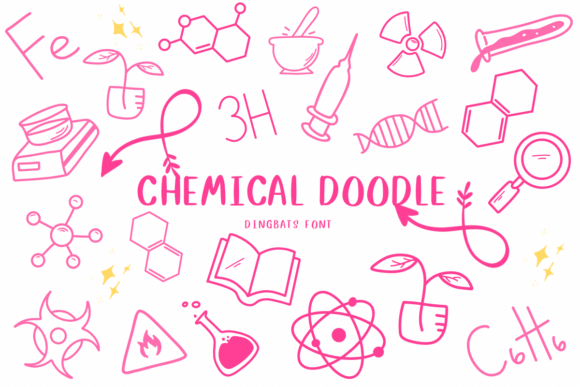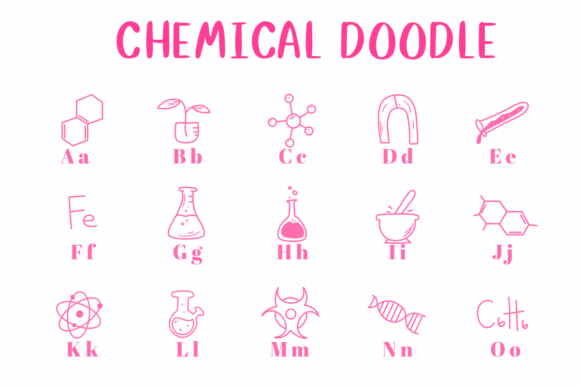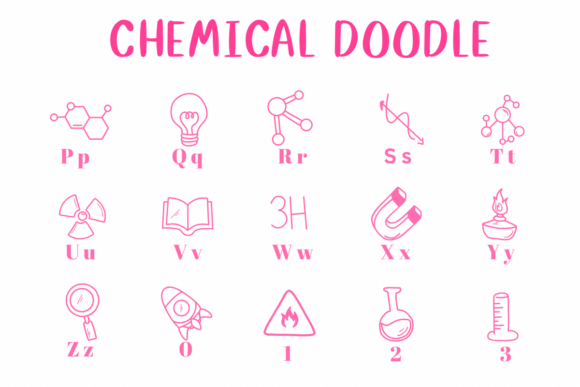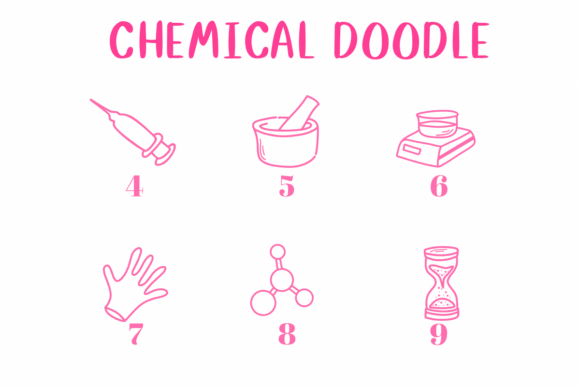
Chemical Doodle Font
About the Chemical Doodle Font
Discover the charm of Chemical Doodle Font. This font is a perfect blend of modern aesthetics and classic appeal. Chemical Doodle is a dingbats font with a sketched style. This font can enhance your creative projects such as wedding invitations, DIY, crafts, decorations, logos, and many other creative ideas.
Chemical Doodle Font Usage Examples
Chemical Doodle Font Example